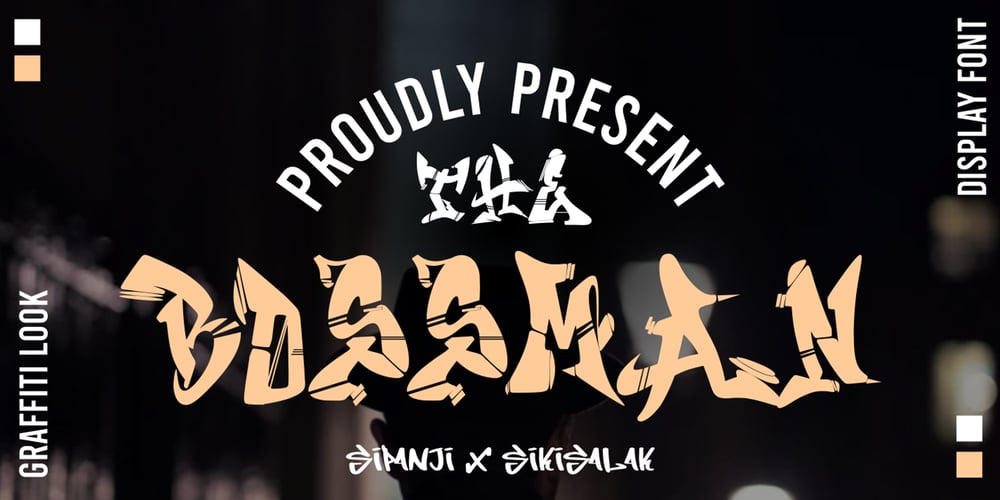
The Bossman Font Family was designed by Sipanji and published by Sipanji21. The Bossman contains 1 styles and family package options. The Bossman is a display font with a graffiti-like appearance, this font only uses uppercase letters and the standard number as well as the standard punctuation. This font is good for various design purposes, such as: title posters, banners, logotypes, apparel, wall displays, crafting, packaging, advertising, or whatever. make your design more attractive with this font.